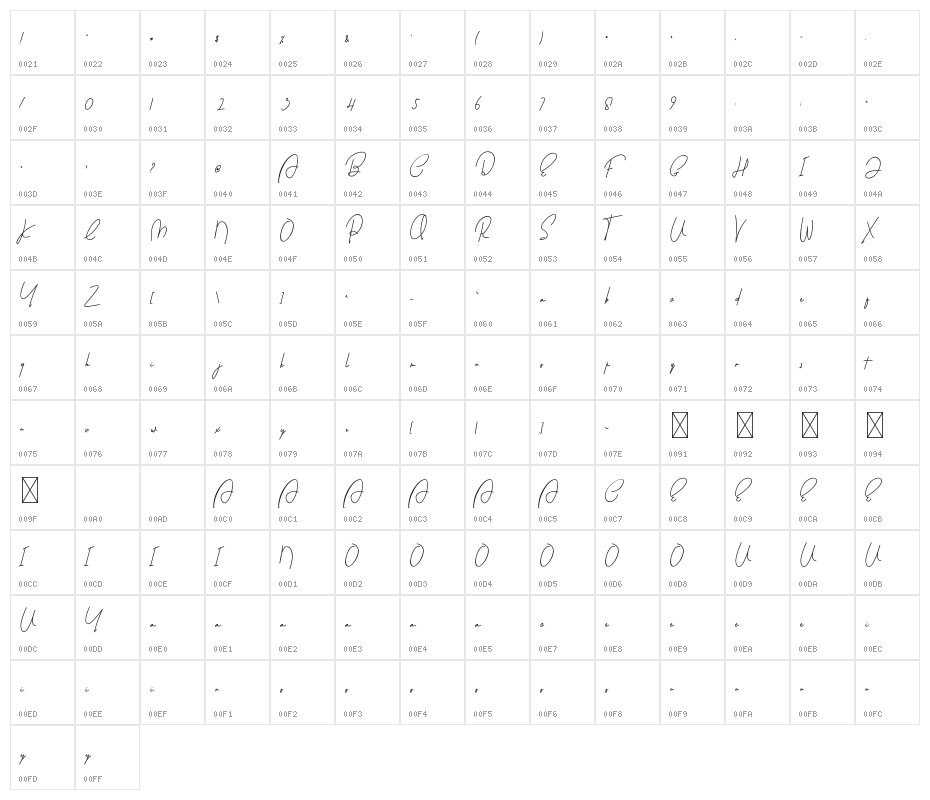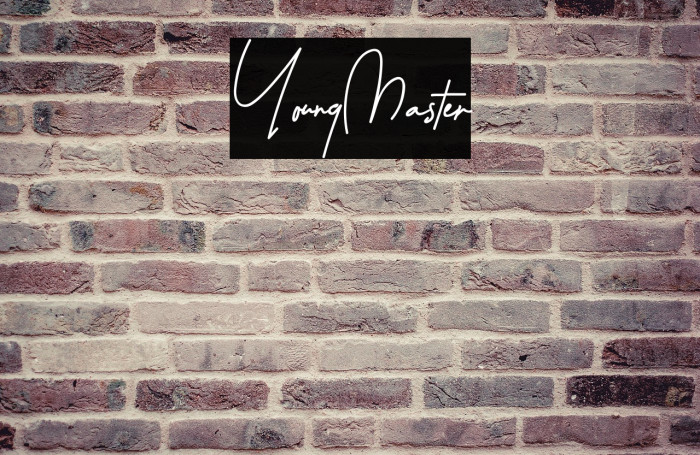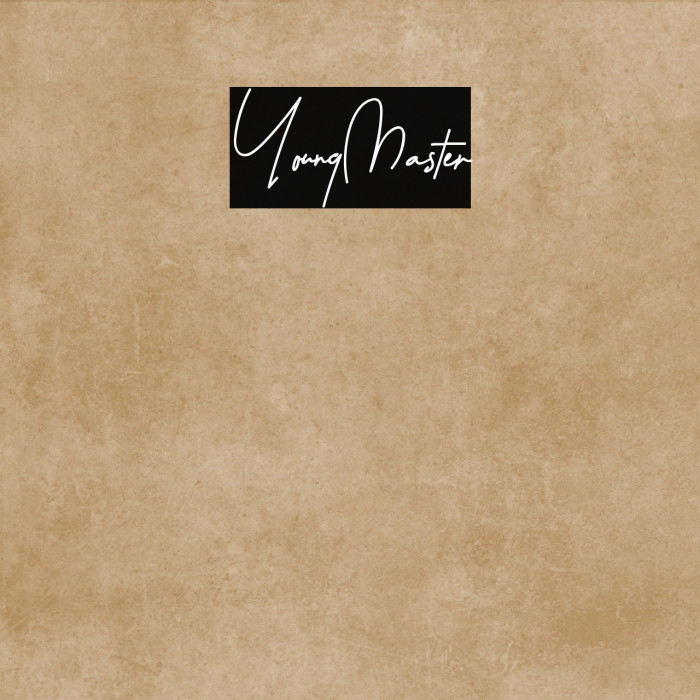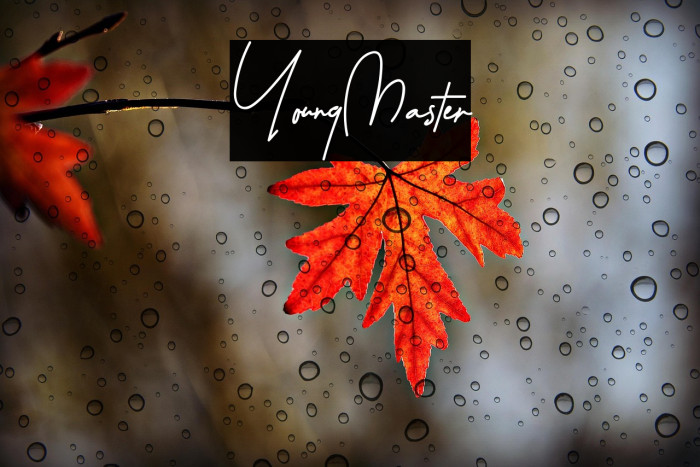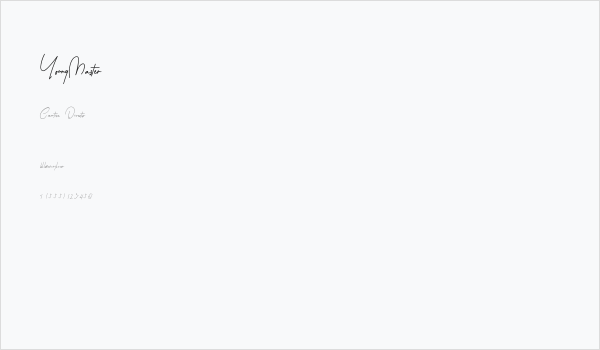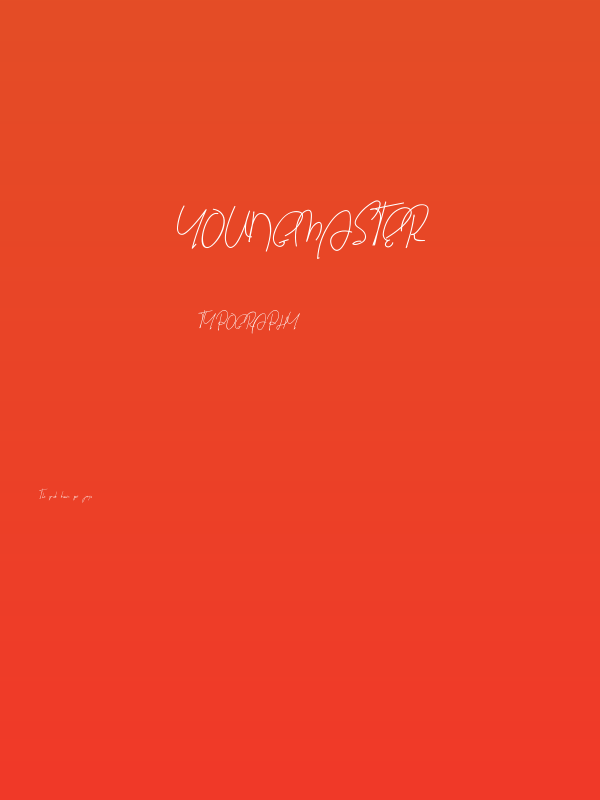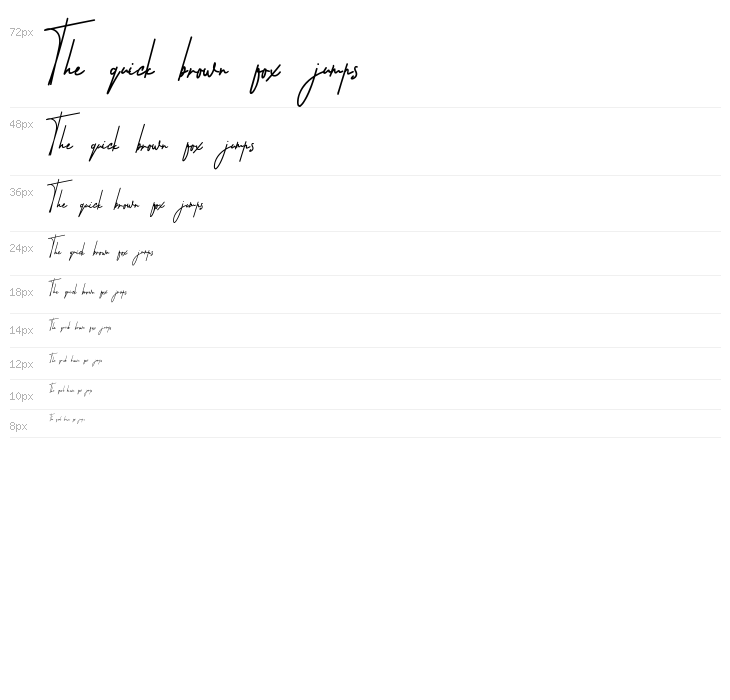
YoungMaster Font
YoungMaster Description
This font exudes a sense of elegance and fluidity, characterized by its cursive, handwritten style. The letters are interconnected with smooth, flowing lines that give it a dynamic and lively appearance. The uppercase letters are bold and prominent, while the lowercase letters maintain a delicate and graceful form. The numerals and special characters follow the same cursive style, ensuring consistency throughout. This font is perfect for projects that require a personal touch, such as invitations, greeting cards, or branding materials. Its artistic flair makes it suitable for creative endeavors where a touch of sophistication is desired.
| Overall Style | Elegant, Artistic |
| Use Case | Headlines, Logos, Invitations |
| Proposed Projects | Ideal for invitations, greeting cards, branding, and creative projects. |